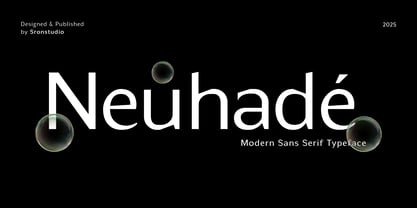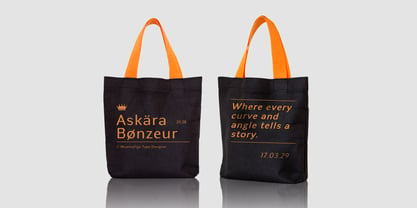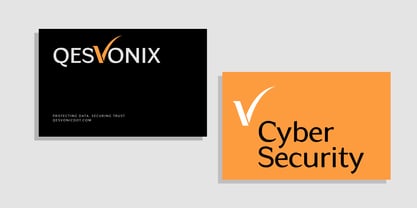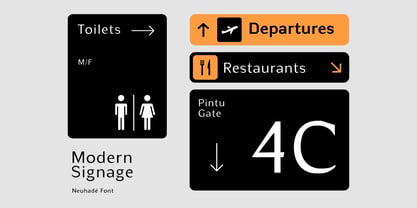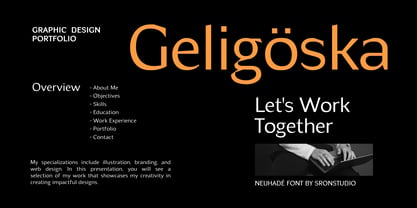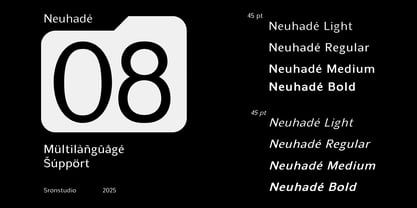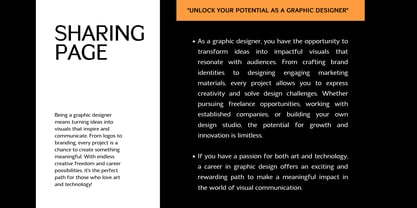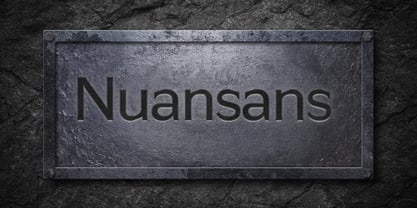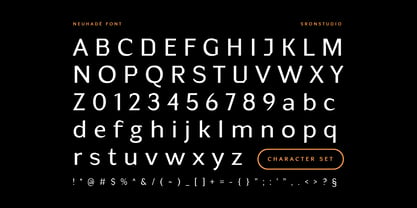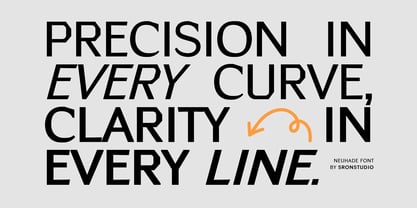
Neuhade
por Sronstudio
La familia tipográfica Neuhade fue diseñada por Muhamad Yusron Billah y publicada por Sronstudio. Neuhade contiene 8 estilos y opciones de paquete familiar. Más información sobre esta familia
Neuhade is a sleek and modern logo font designed to bring a sophisticated and contemporary touch to your branding. With its clean lines, geometric precision, and stylish letterforms, this font is perfect for logos, headlines, packaging, and high-end design projects. Neuhade exudes elegance and professionalism, making it a great choice for brands that want to stand out with a refined and futuristic aesthetic.
- Style: Light, Regular, Medium, & Bold.
- Uppercase & lowercase letters
- Numerals & punctuation
- Multilingual support
Diseñadores: Muhamad Yusron Billah
Fundición actual: Sronstudio